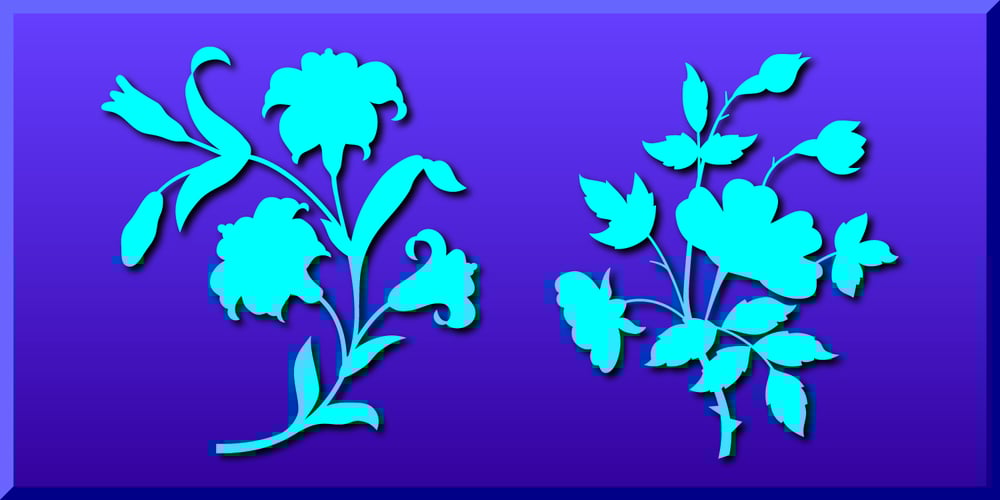
Plant Assortment Font Family was designed by Gerald Gallo and published by Gerald Gallo. Plant Assortment contains 1 styles and family package options. Plant Assortment was inspired by plant renderings from historic sources. This font contains an assortment of 47 plants located under the character set keys.